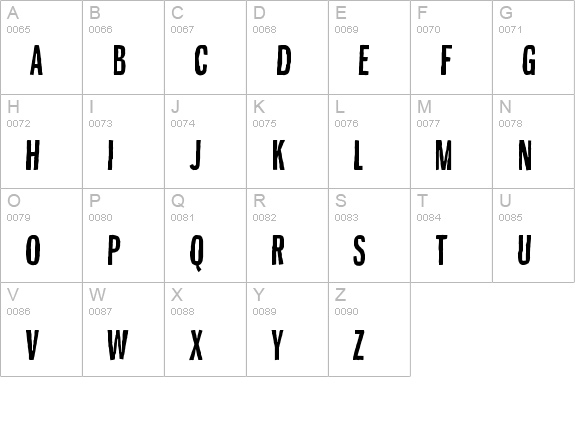
Darkheart-Regular is the standard, neutral variant in the Darkheart typeface family \xE2\x80\x94 well suited to general body text, paragraphs, and standard typographic work.
Darkheart-Regular is a stunning and versatile font that exudes a sense of mystery and sophistication. With its sharp edges and elegant curves, this typeface is perfect for creating impactful designs that demand attention. Whether used for headlines, logos, or decorative text, Darkheart-Regular adds a touch of drama and flair to any project. Best of all, Darkheart-Regular is available for free download at FontsMarket.com. This means you can easily access this captivating font and use it in your personal or commercial projects without any cost. Don't miss out on the opportunity to elevate your designs with Darkheart-Regular - download it today and let your creativity shine!